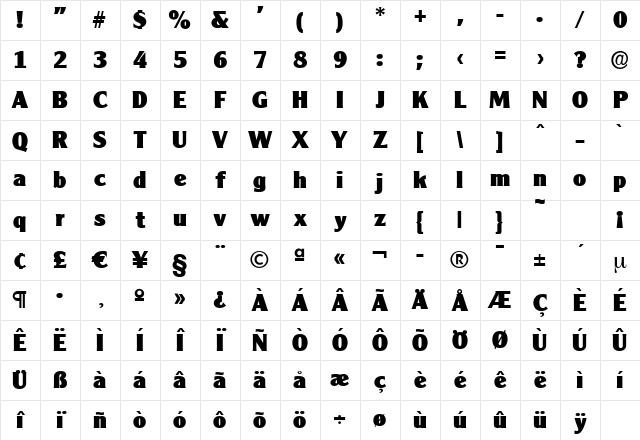
AlexanderBecker-Heavy Regular
AlexanderBecker-Heavy Family
AlexanderBecker-Heavy Regular
Design Context for AlexanderBecker-Heavy
AlexanderBecker-Heavy is a composed and adaptable typeface that performs quietly and consistently across a wide range of design contexts.